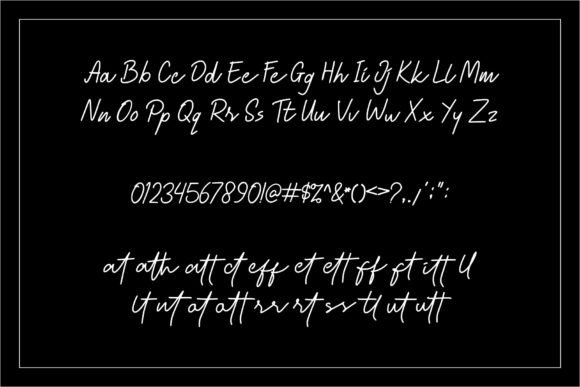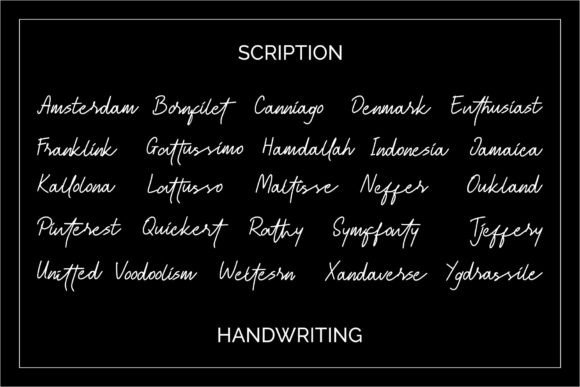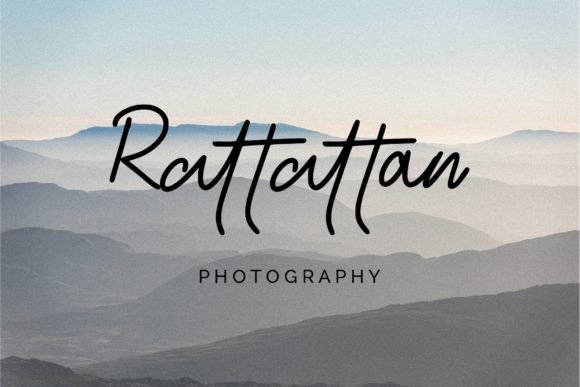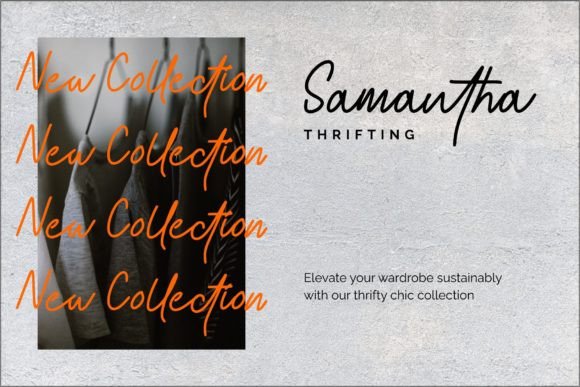
Introduction to Scription Font
As you sit at your desk, surrounded by sketches and scribbles, you finally have a eureka moment – the perfect concept for your next creative project. The excitement is palpable, but you know you need the right design resource to bring your vision to life. That’s where the Scription Font comes in – a flowing handwritten font that exudes elegance and sophistication.
With its incredibly distinct and timeless style, the Scription Font is the perfect addition to any project. Whether you’re working on a logo, a brochure, or a website, this high-quality font is sure to impress. And the best part? It’s available for free download, making it an accessible design resource for creatives of all levels.
What sets the Scription Font apart is its versatility – use it to create stunning designs with a transparent background, or pair it with other fonts to add a touch of whimsy to your project. As a designer, you’ll appreciate the value of this font, which is sure to elevate your work and leave a lasting impression on your audience.
Key Features of Scription Font
- Unique and elegant script font with a transparent background, perfect for adding a touch of sophistication.
- Features a beautiful, cursive script with intricate details, making it perfect for wedding invitations, quotes, and other creative projects.
- Scription Font is a versatile design resource that can be used for a wide range of creative projects, from logos to typography-based designs.
Honest Review: Scription Font
I recently had the chance to work with the Scription Font, and I must say, it’s a great addition to any design resource collection. The high quality of the font is immediately noticeable, and it’s perfect for creative projects where you want to add a touch of elegance.
- High-quality design: The Scription Font has a beautiful, intricate design that’s sure to catch the eye.
- Limited font weights: The Scription Font only comes in a few font weights, which may limit its use in certain projects.
- No bold or italic options: Unfortunately, there are no bold or italic options available for the Scription Font.
Overall, I’m really impressed with the Scription Font. It’s a great choice for designers looking for a high-quality, elegant font for their creative projects. With a few tweaks to add more font weights and options, it could be even better.
Tips for Getting the Most Out of Scription Font
For optimal results, use the Scription Font in conjunction with a high-quality image or background. Experiment with different font sizes and styles to create a visually appealing design. Additionally, consider using the font in combination with other design resources to create a cohesive look.
The Scription Font is ideal for a variety of creative projects, including:
- Social media posts